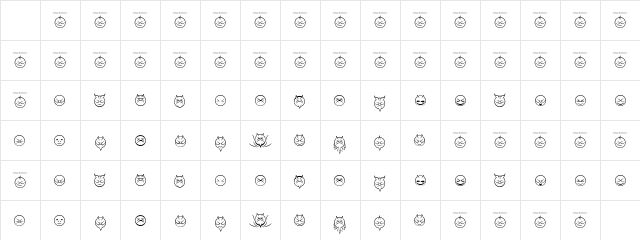
some devil faces is a composed and adaptable typeface that performs quietly and consistently across a wide range of design contexts.
Pro Tip: Use some devil faces in both headline and body roles to test its range before committing to a single application.